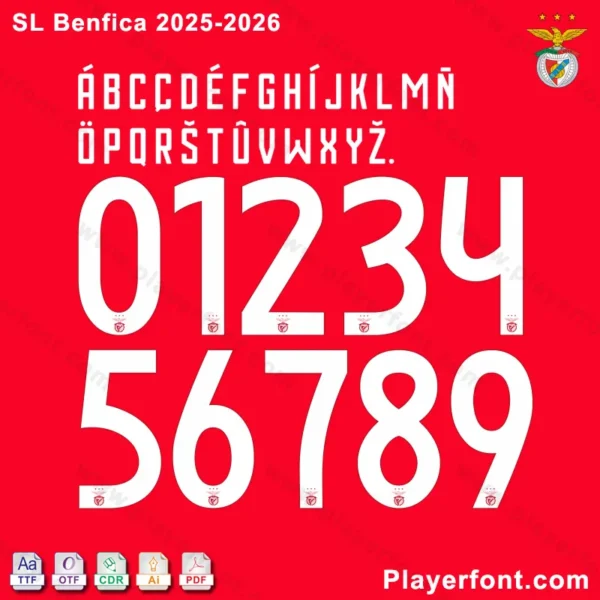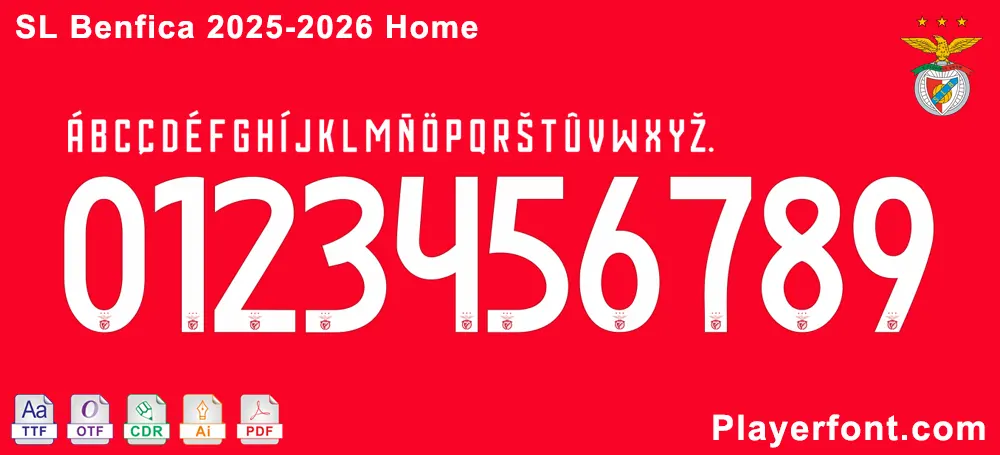
SL Benfica 2025-2026 Font Downloads
SL Benfica 2025-2026 Font – Professional Typeface Files
Preview of the SL Benfica 2025-2026 font, including letters and numbers in official style.
✔ Matching Numbers & Letters – Replicates the official Benfica typography.